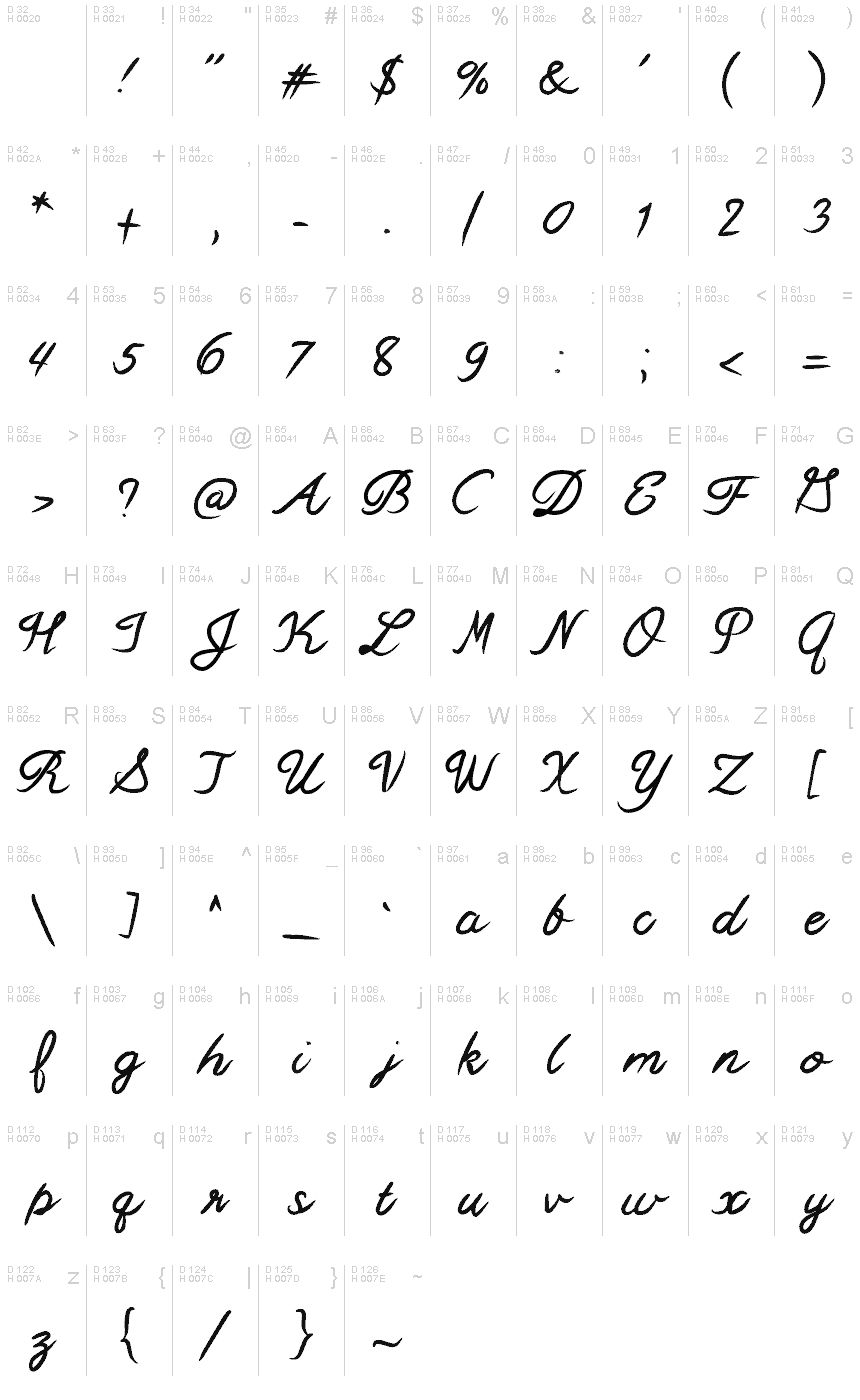
MixSwift
Mix Swift, a captivating handwritten font crafted by Mix Fonts, exudes a harmonious blend of fluid elegance and casual charm. Its organic, script-like strokes and natural variations seamlessly capture the essence of handwritten expression, lending an authentic, personalized touch to any design. The font's striking character forms and dynamic flow create a visually compelling aesthetic that can elevate branding, editorial, and even digital content with a touch of warmth and personality.
This versatile font can seamlessly adapt to a wide range of design applications, from eye-catching headings and impactful logos to inviting social media captions and charming stationery. Its ability to convey a sense of warmth and approachability makes Mix Swift an ideal choice for projects requiring a personal, handcrafted feel, such as wedding invitations, greeting cards, and product packaging.